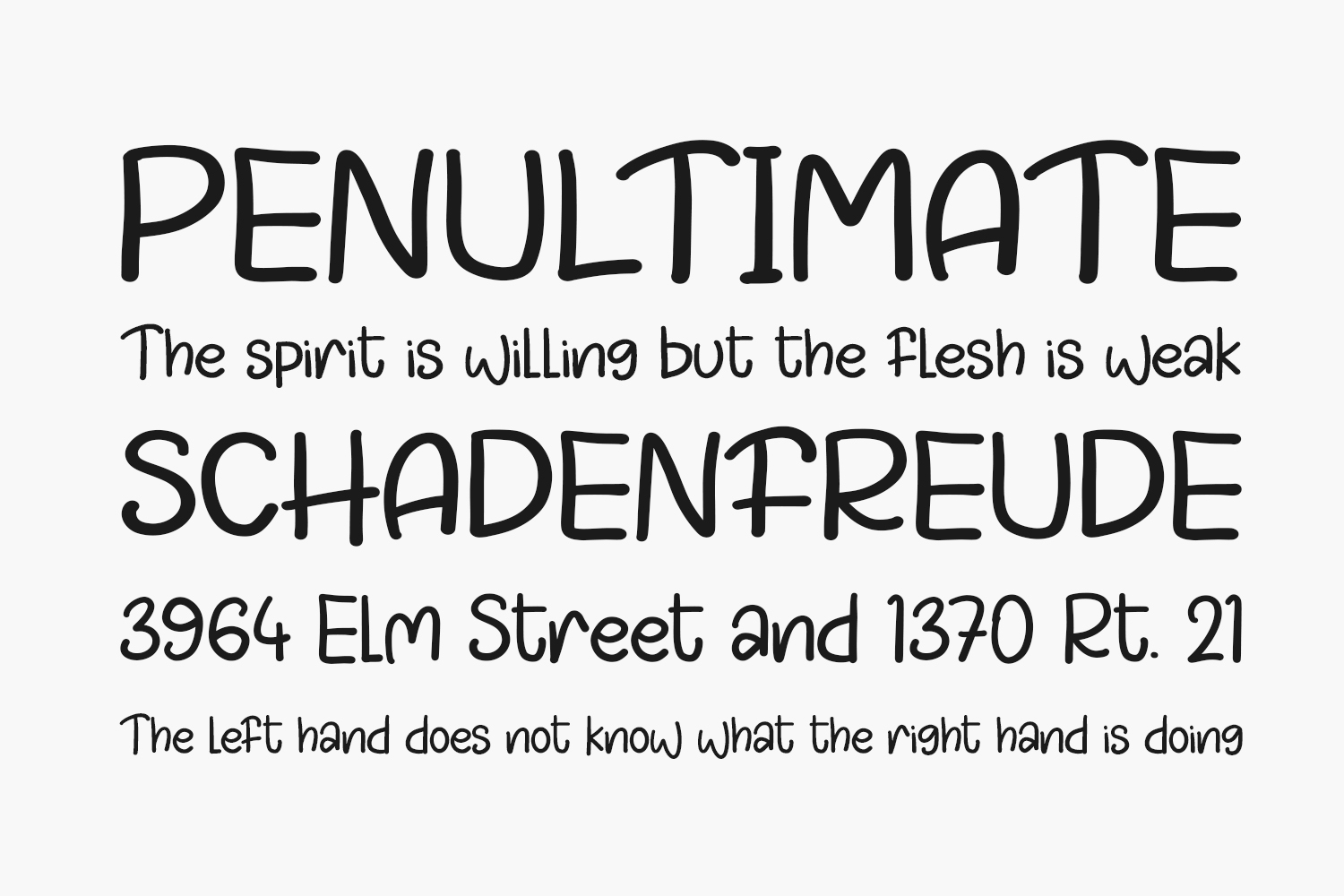
Introducing Hello Twins Free Font, a delightful and charming handwritten font. Perfect for crafts, digital creations, presentations, or crafting greeting cards, this font promises to be your ultimate choice for any occasion. Download the font for free if you need it for personal use or purchase the full version for commercial use.
Designed by Annisa Afni